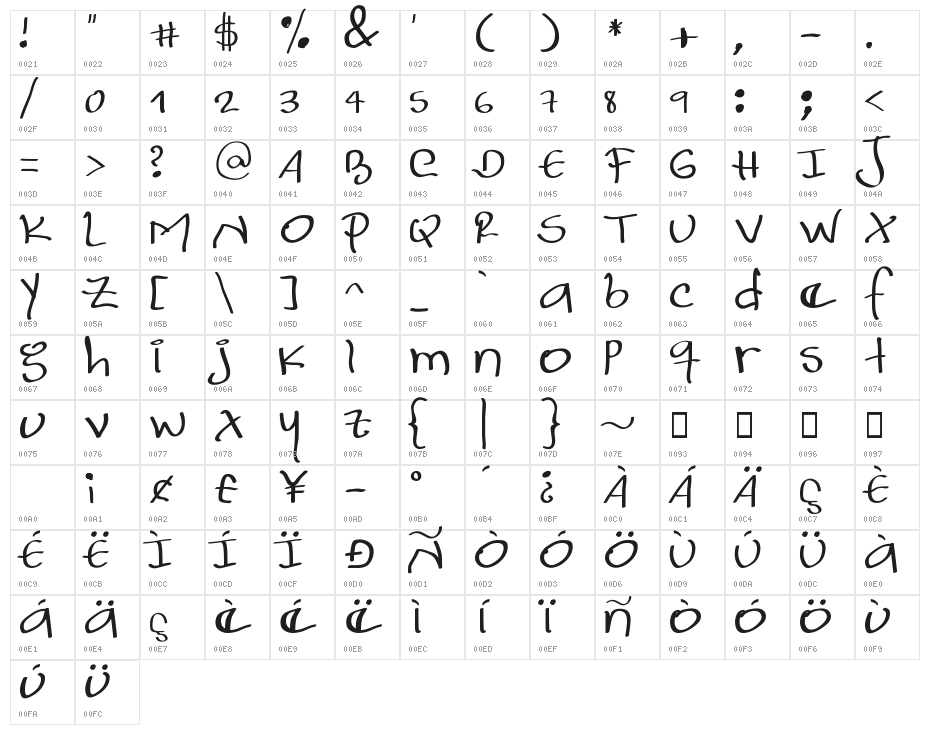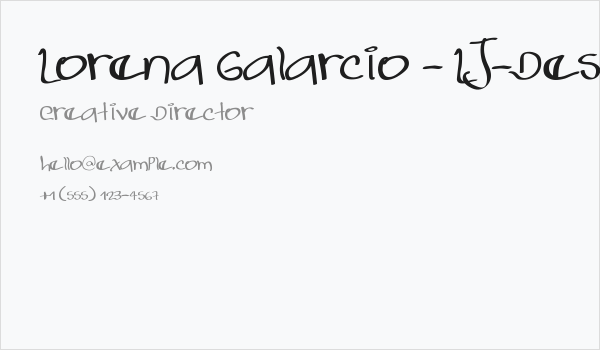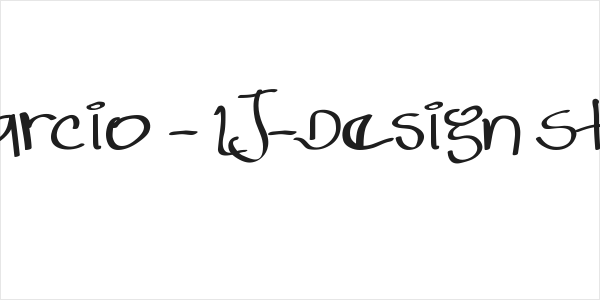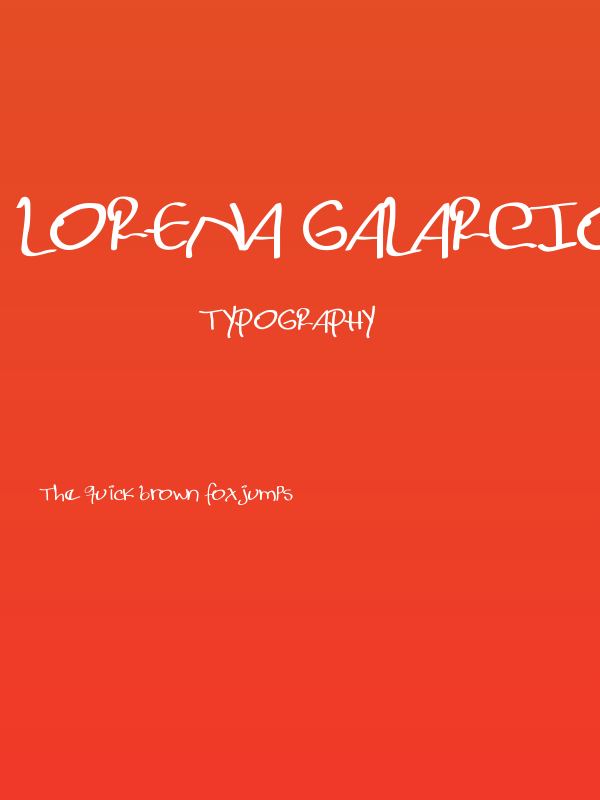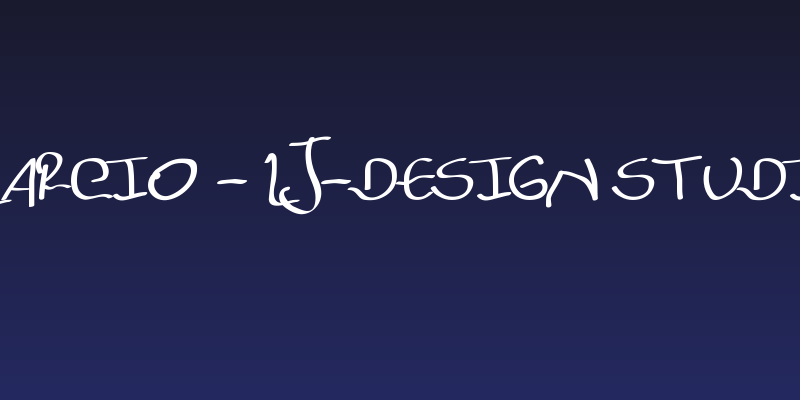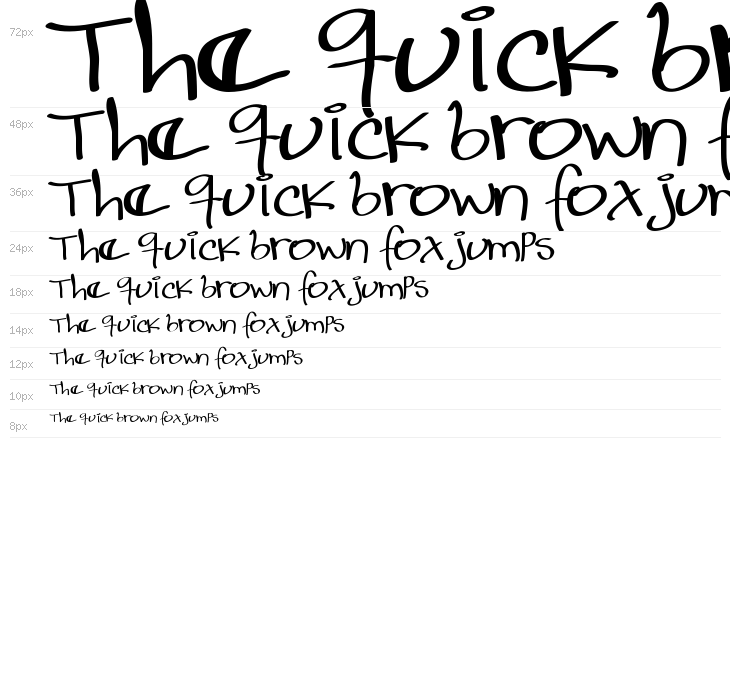
Lorena Galarcio - LJ-Design Studios Gross Font
Lorena Galarcio - LJ-Design Studios Gross Description
This font exhibits a lively and dynamic handwritten style, characterized by its fluid and irregular strokes. The letters have a playful and informal appearance, with varying thickness that adds a sense of movement and energy. The uppercase letters are bold and prominent, while the lowercase letters maintain a consistent flow, enhancing readability. The numerals are distinct and align well with the overall style, making them suitable for creative and artistic projects. The special characters are designed to complement the alphabet, ensuring versatility in usage.
| Proposed Projects | Ideal for greeting cards, invitations, artistic posters, and branding materials that require a personal and creative touch. |